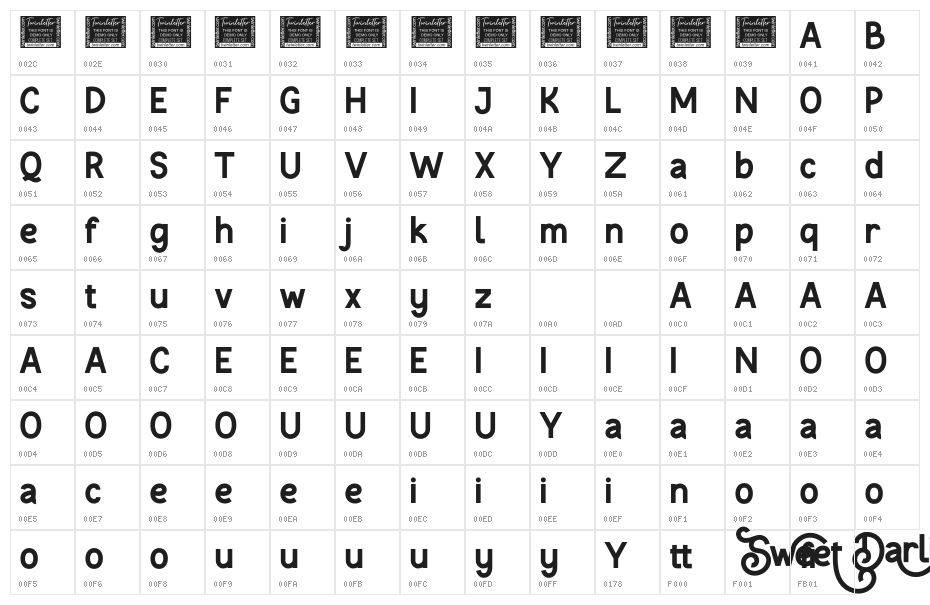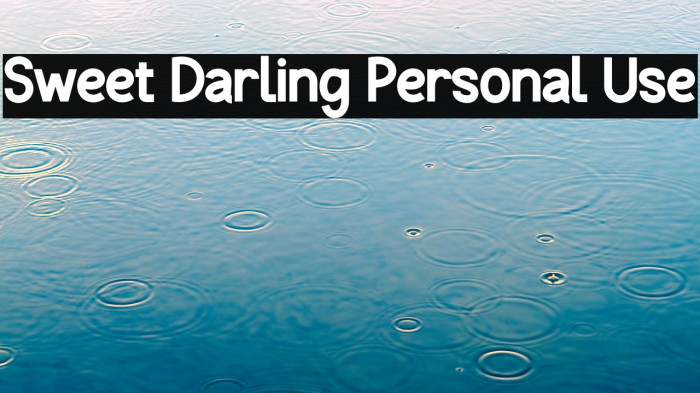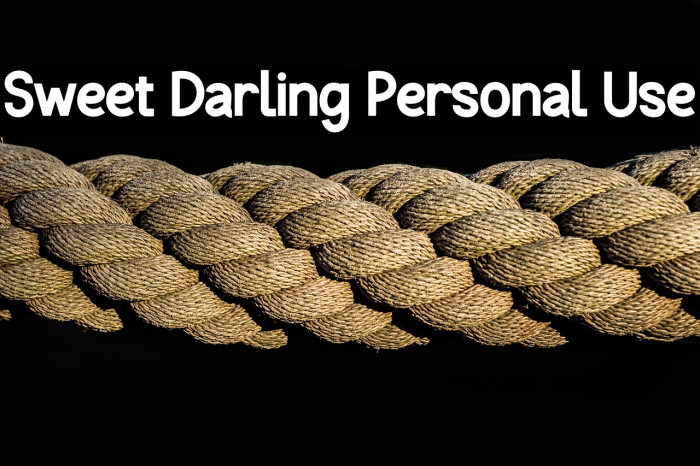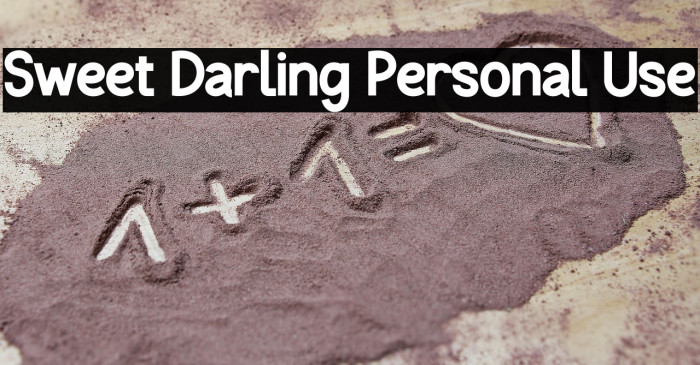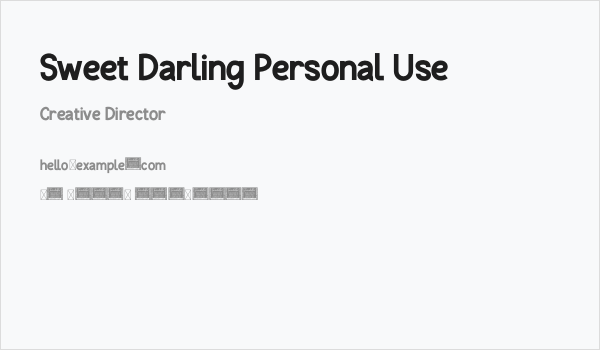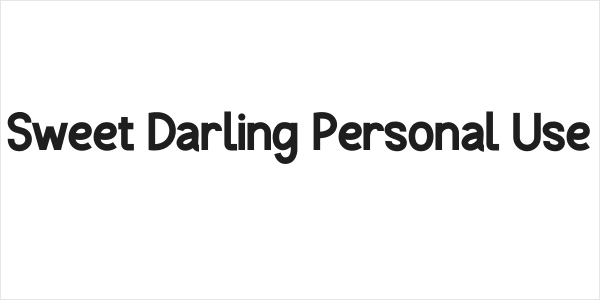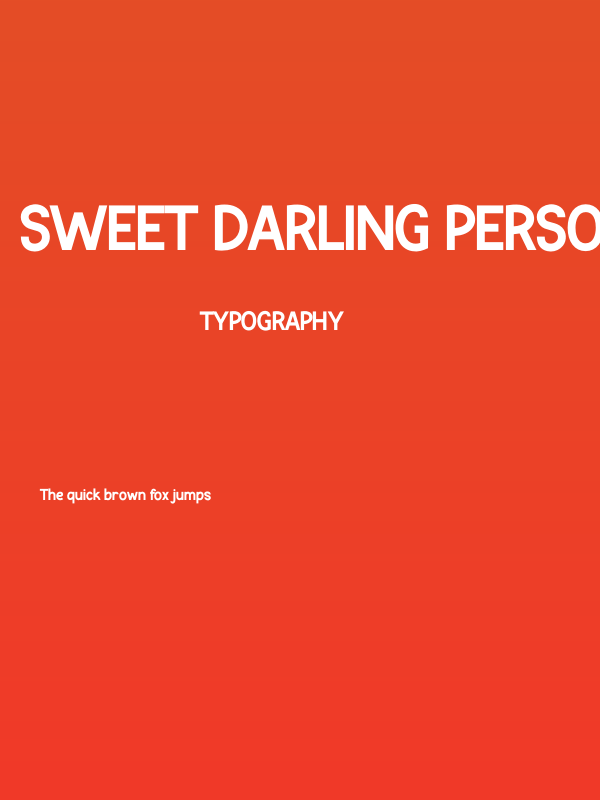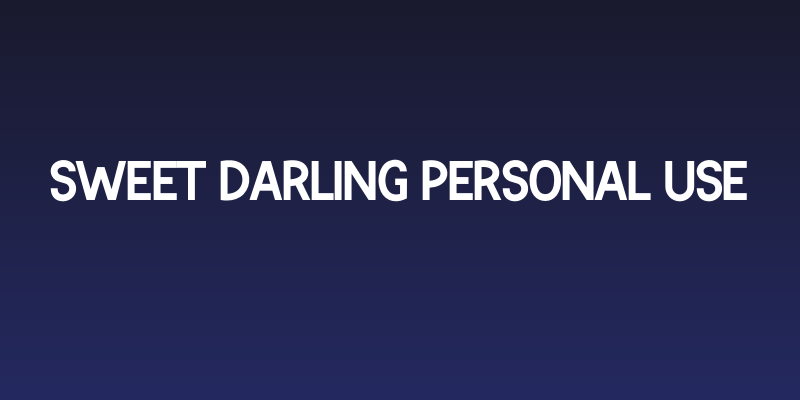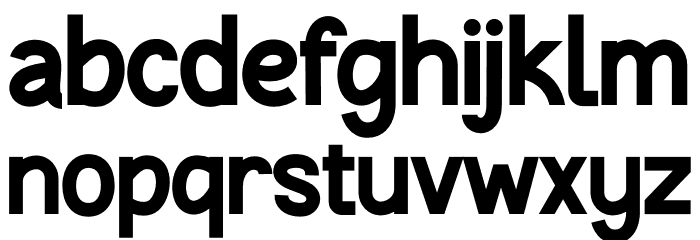
Sweet Darling Personal Use Font
Sweet Darling Personal Use Description
This font features a bold and modern sans-serif style with clean lines and a strong presence. The uppercase letters are uniform in height, while the lowercase letters maintain a consistent baseline with slightly rounded edges, giving a friendly yet professional appearance. The font's geometric structure ensures clarity and readability, making it suitable for various design applications. The characters are evenly spaced, providing a balanced and harmonious look. This typeface is versatile, offering a contemporary feel that can enhance both digital and print media.